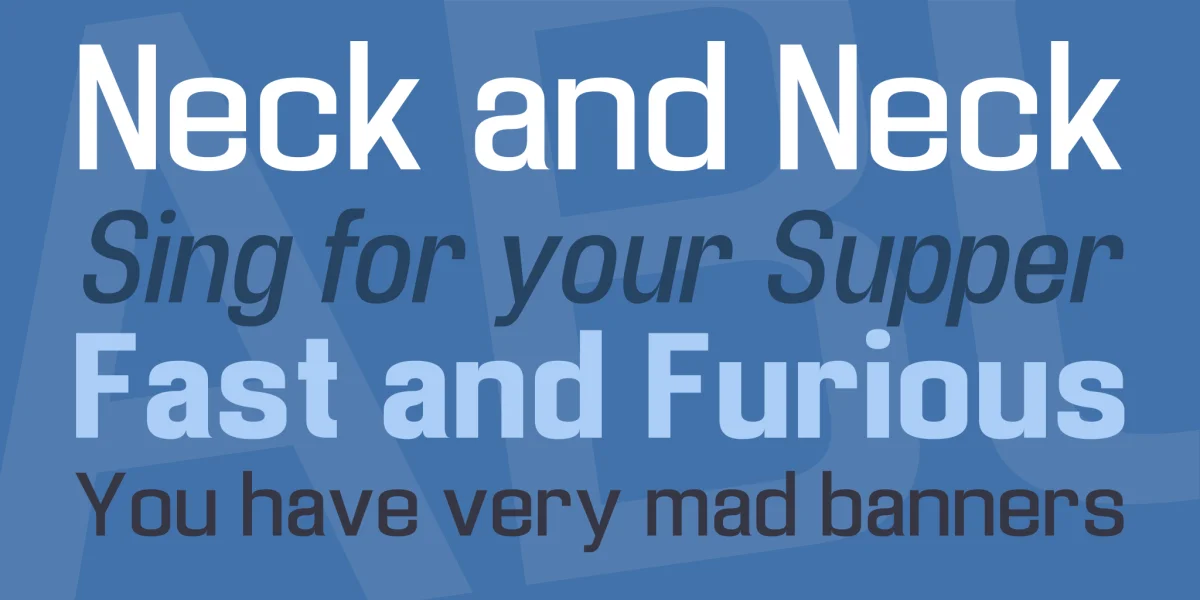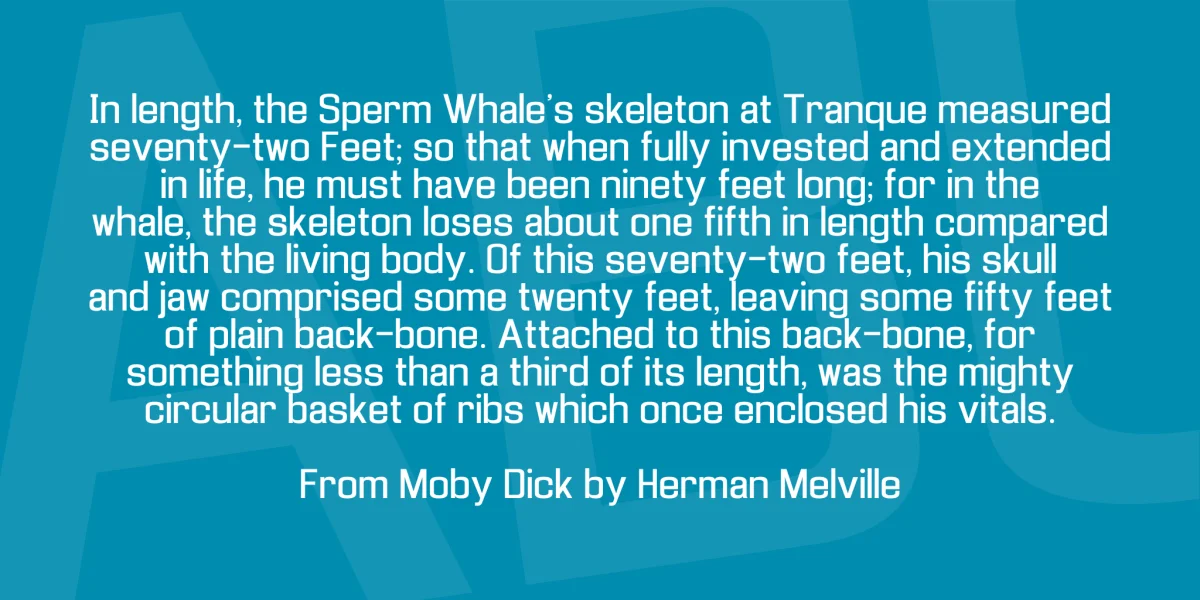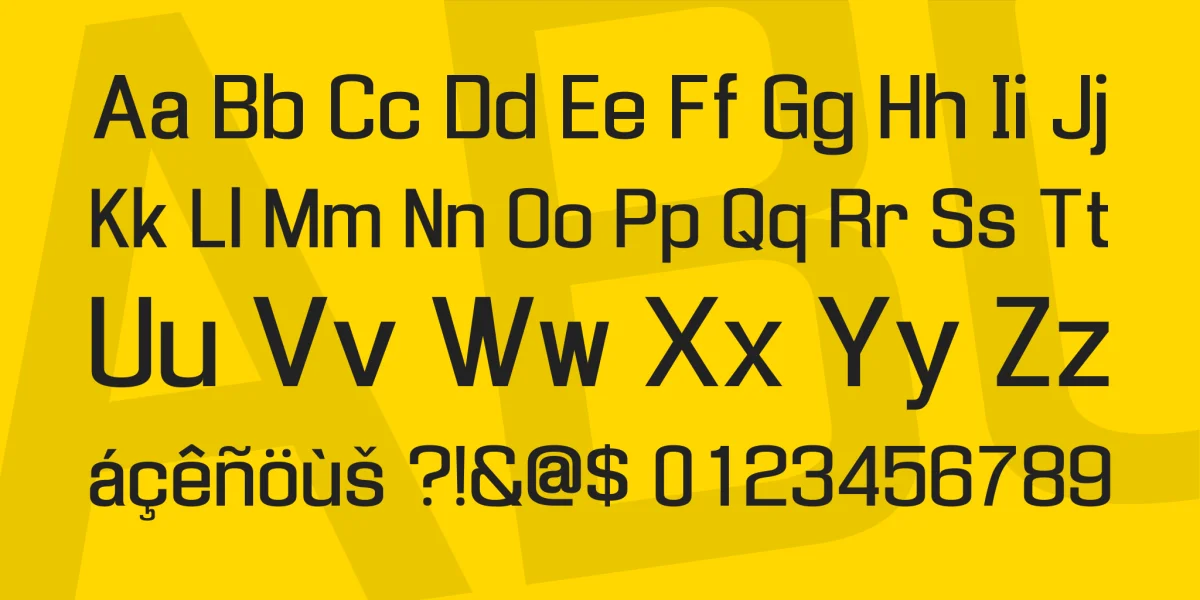
The one that started it all. I've cleaned up the lines, much as I did for Three-Sixty, and I recreated the long-lost italic version of the font. The character set is now more complete, and I think all this has made the world a happier place, don't you?
Now there's a bold font, too.